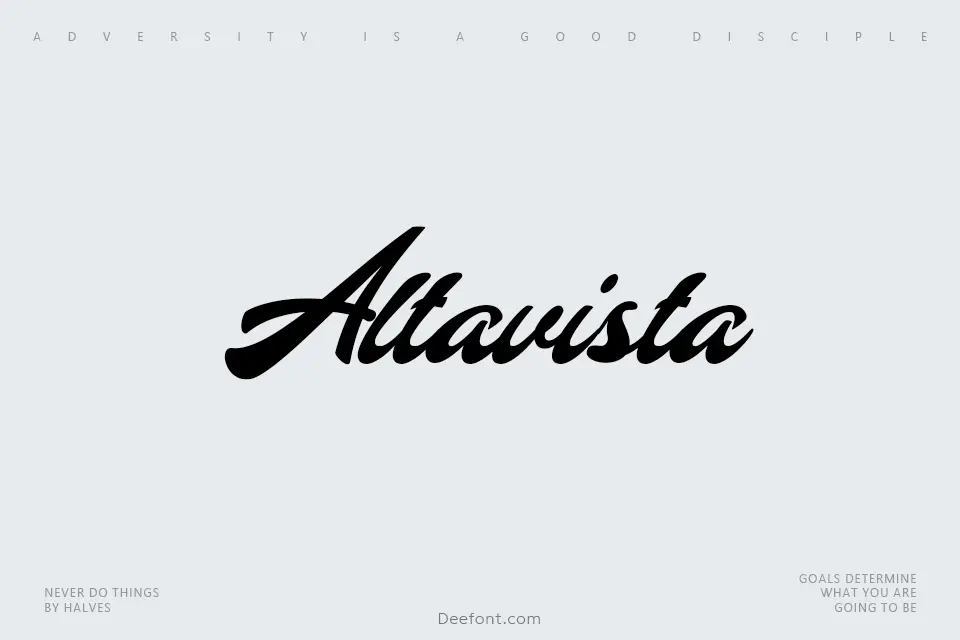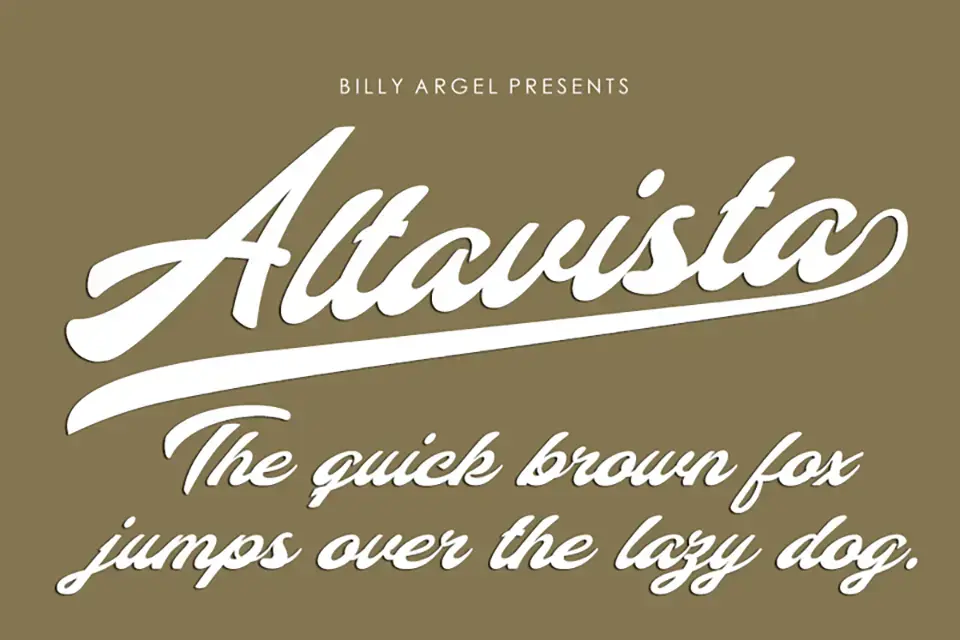
Altavista Font
Altavista is a sophisticated script display font that combines flowing elegance with vintage charm. Featuring 290 carefully crafted glyphs including accents and Euro currency support, this typeface delivers distinctive letterforms perfect for poster designs, title text, and decorative applications. The ornate script style exudes an old-school aesthetic that evokes nostalgia while maintaining contemporary visual appeal, making it an excellent choice for designers seeking retro-inspired typography for creative projects and branding initiatives.